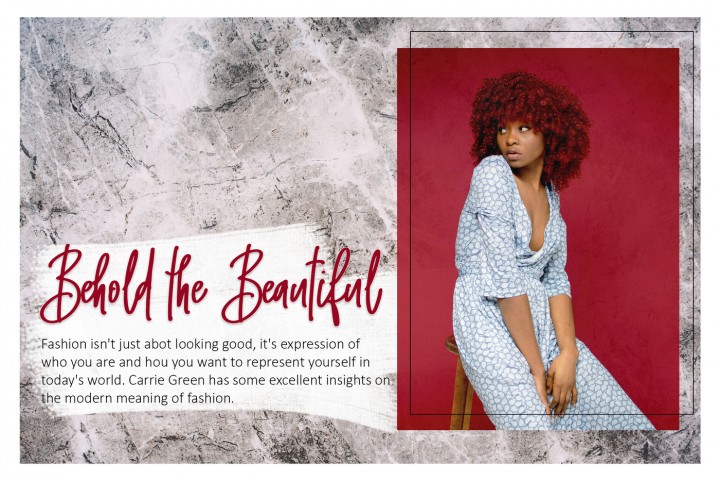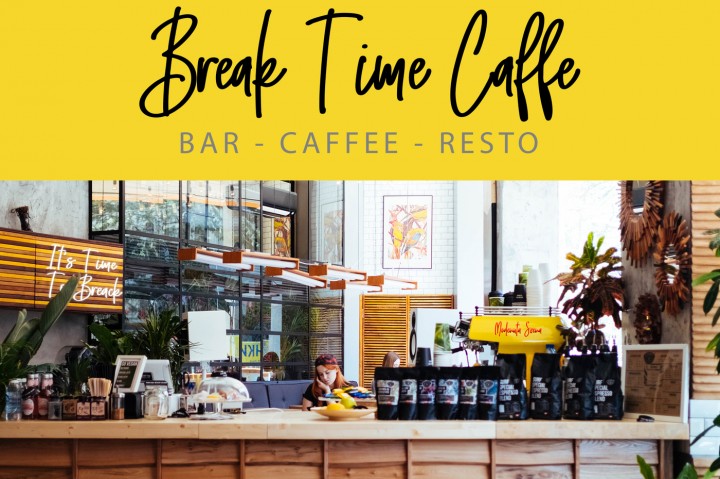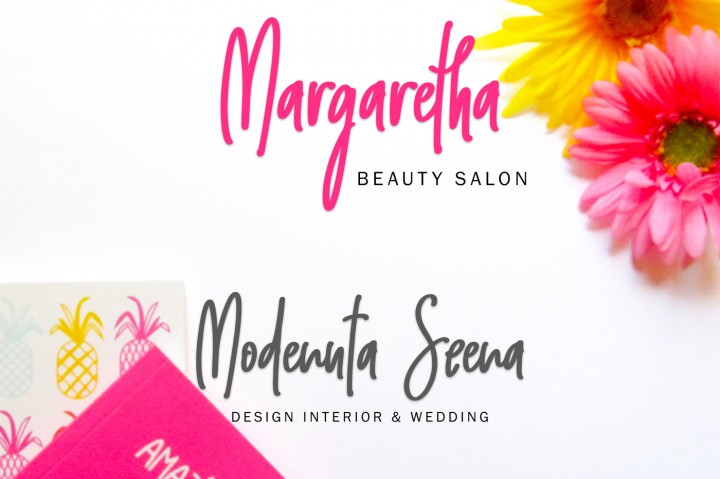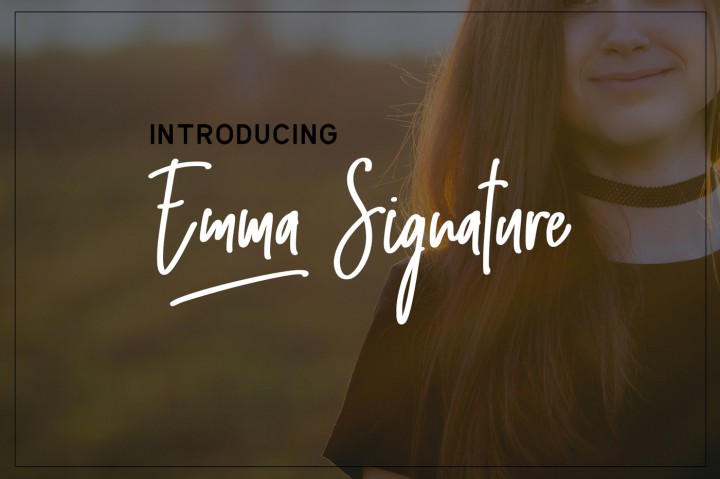
Emma Signature Font
This font is especially for you if you need to add tenderness to your project. Introducing Emma Font. It is was designed by InkCreativeArt. Emma is a gorgeous, modern font that is suitable for a wide range of projects. This casual, doodle-like font is a great way to give your designs a modern yet laissez-faire charm. This font is created with a semibold handwriting style. It can be used in all advertising materials, perfect for: branding, Wedding,Greeting business card, packaging, flyer, logo, photos, books, packaging, posters, Invitation, etc